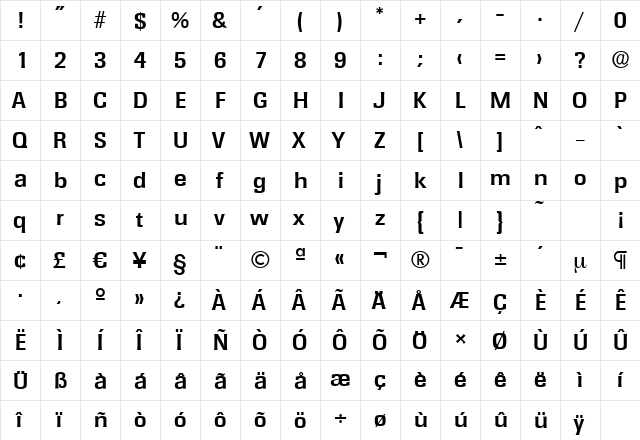
RochesterSerial Bold
Design Context for RochesterSerial Typeface
RochesterSerial is a composed and adaptable typeface that performs quietly and consistently across a wide range of design contexts. Its bold stroke weight gives it real presence on the page.